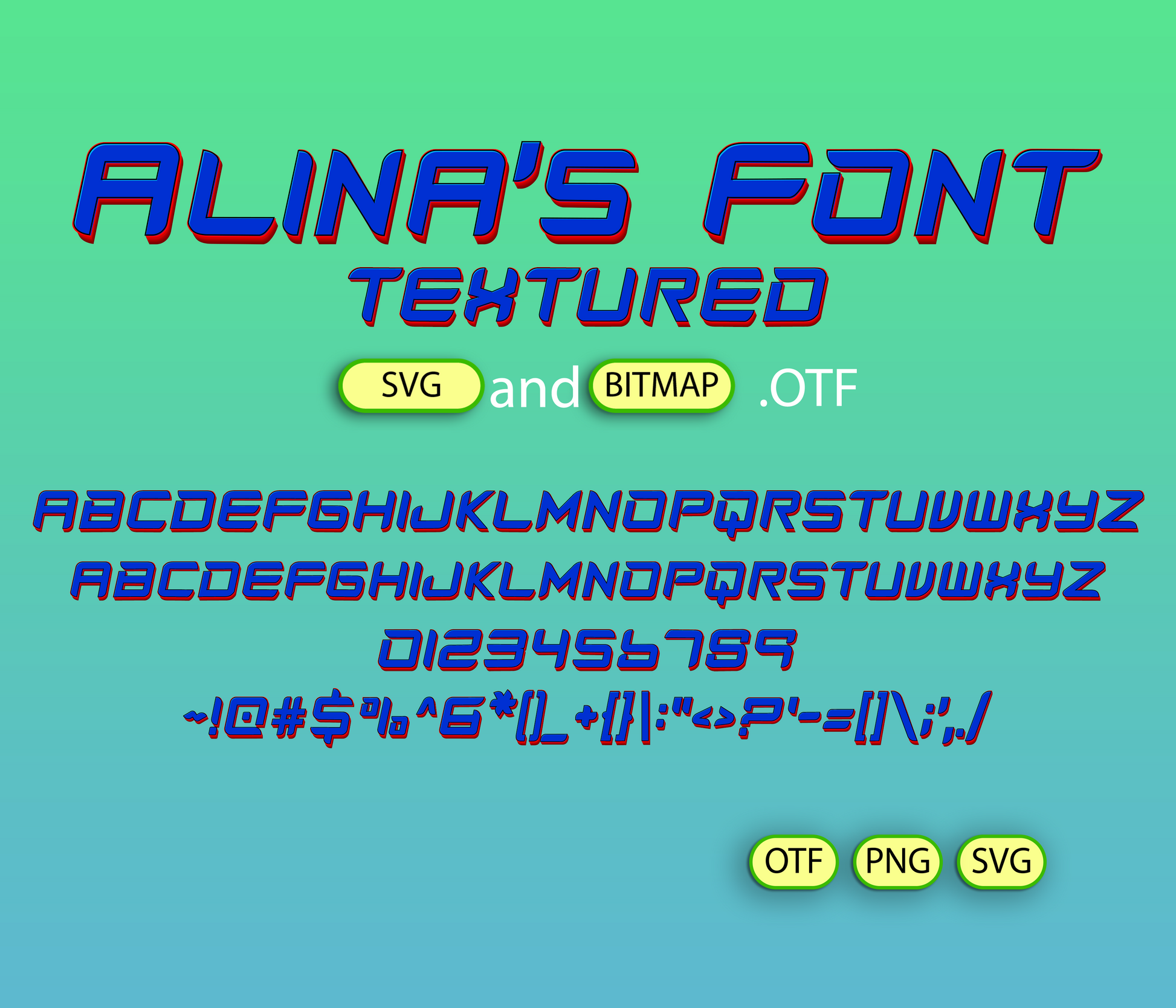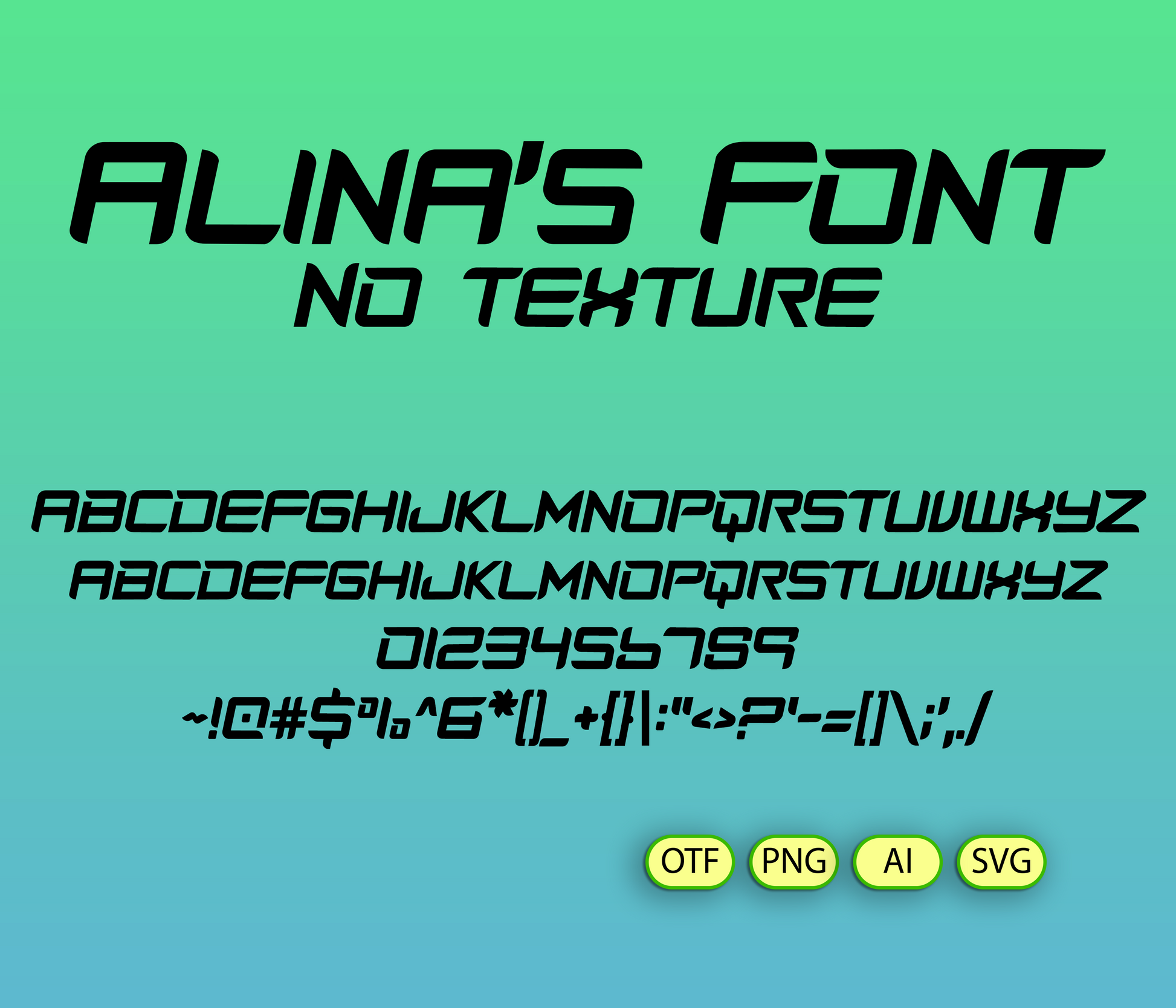
The Multiverse Adventure Font Textured
The Multiverse Adventure Typeface
Explore the multiverse with our specially designed font, inspired by the film that takes a hero's journey to new dimensions. This font captures the film's expansive narrative, blending suspense, action, and timeless heroism, perfect for projects aiming to capture this epic saga.
What is the Multiverse Adventure Typeface?
Envision a typeface that embodies the dramatic, adventurous, and interconnected spirit of the multiverse. Our Multiverse Adventure Typeface echoes the film's complex themes, with bold, impactful letterforms that convey action and multidimensional adventure. The font includes a comprehensive character set, featuring alphabets, numbers, and special symbols, ideal for various design projects from cinematic content to themed merchandise.
This typeface is an exploration into the thrilling and complex world of the multiverse.